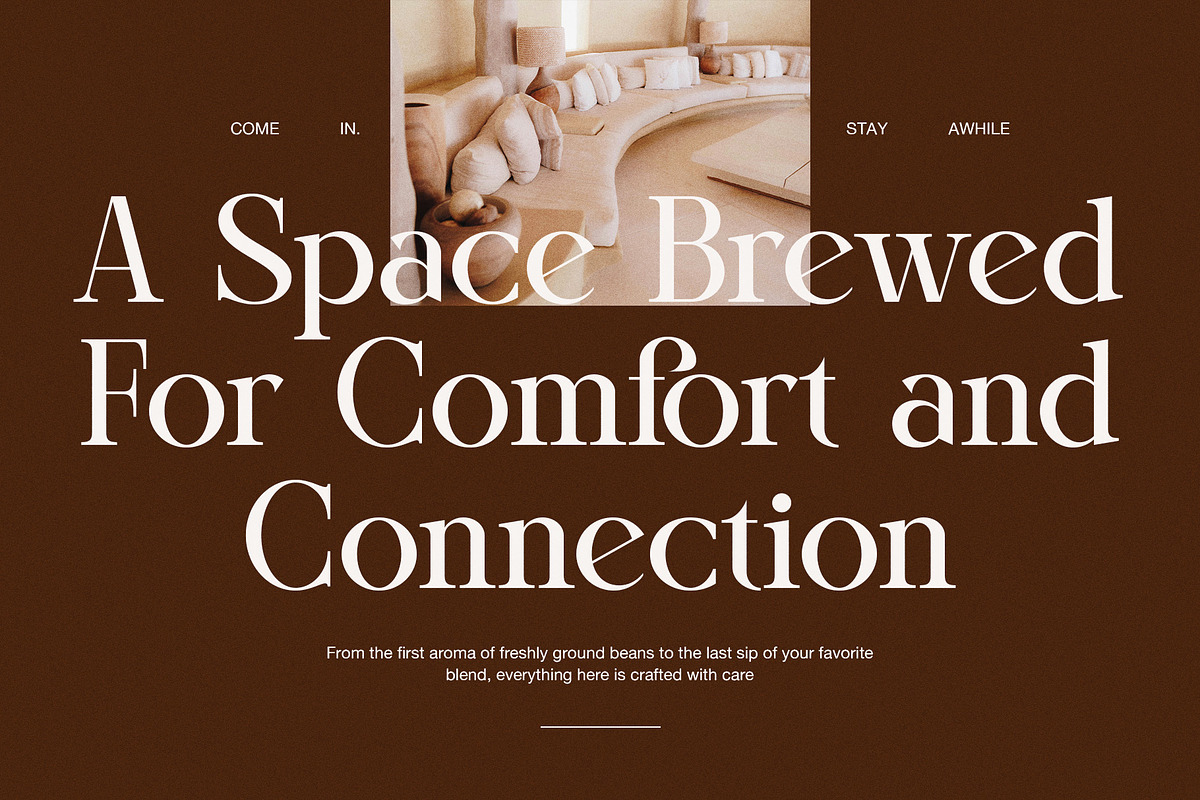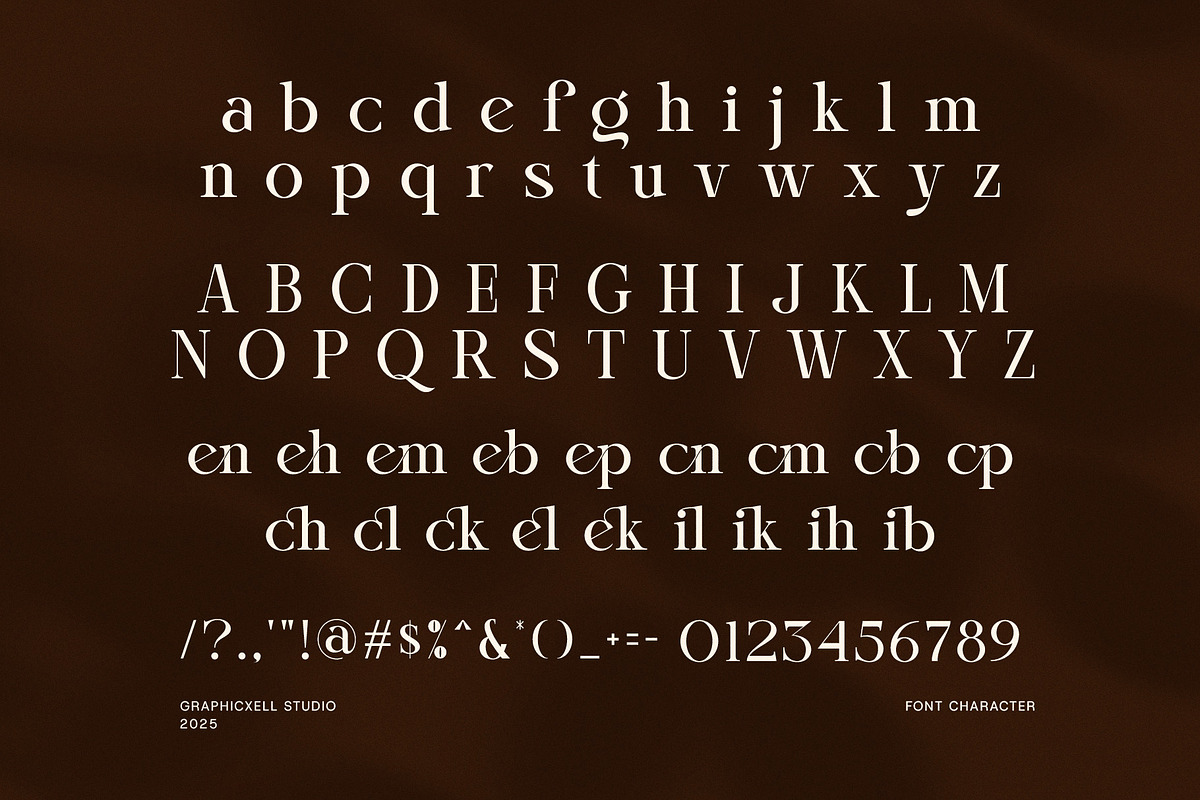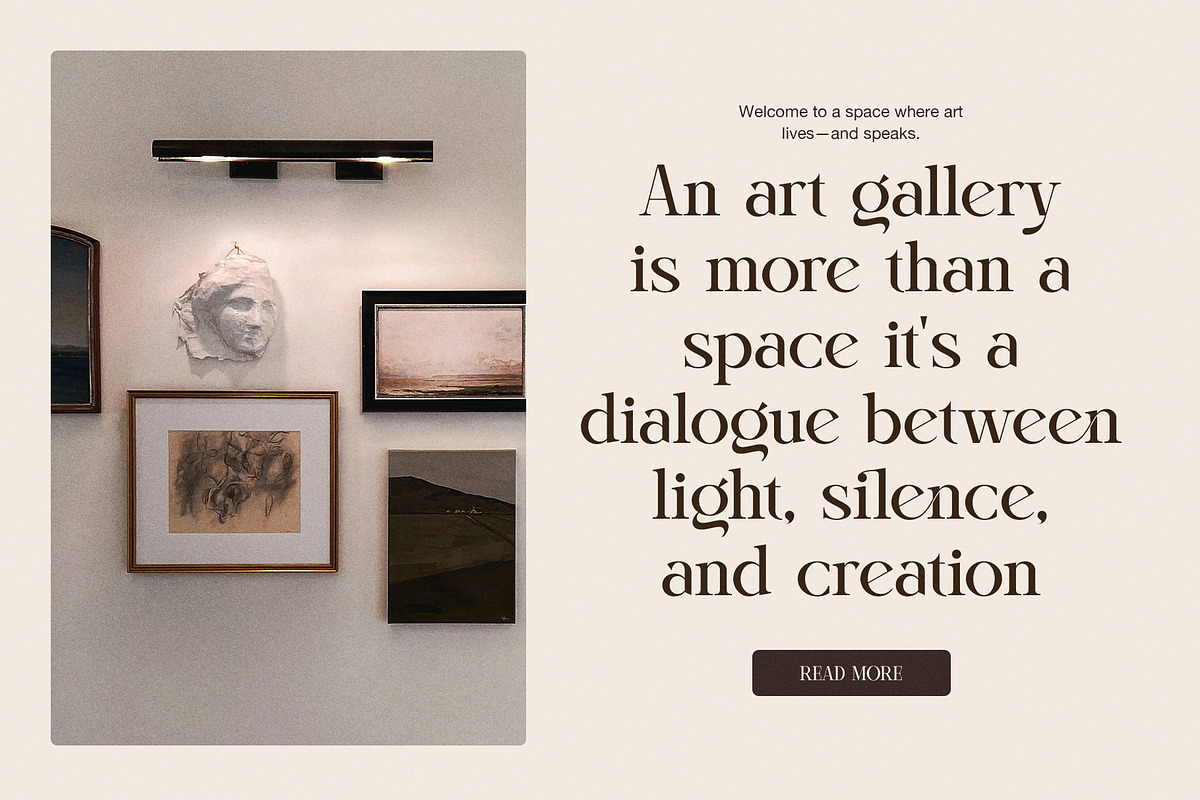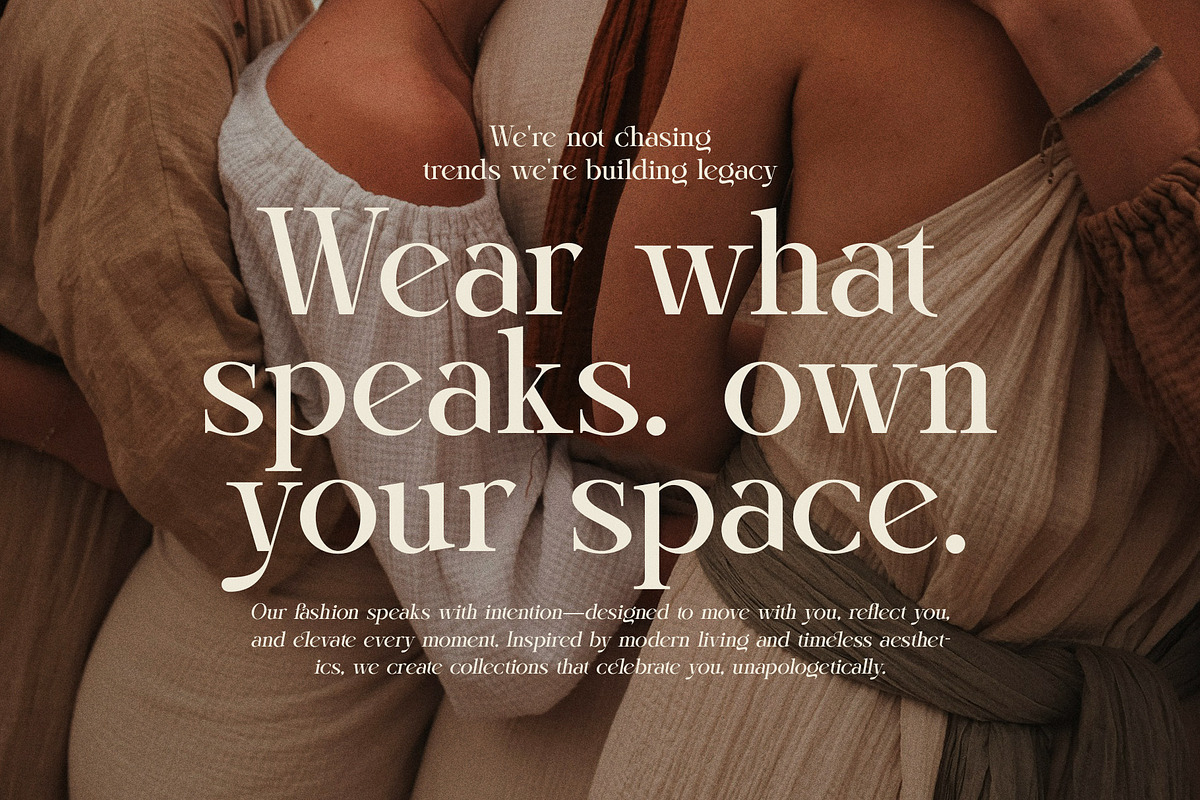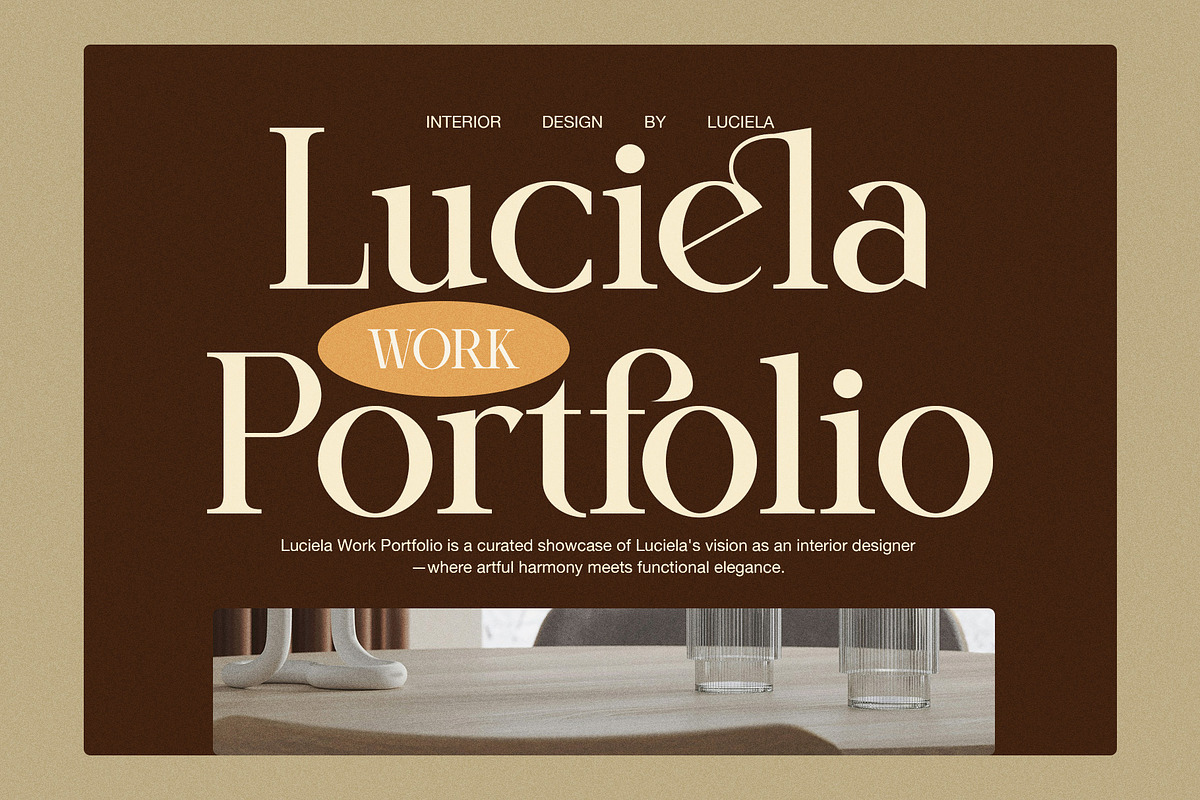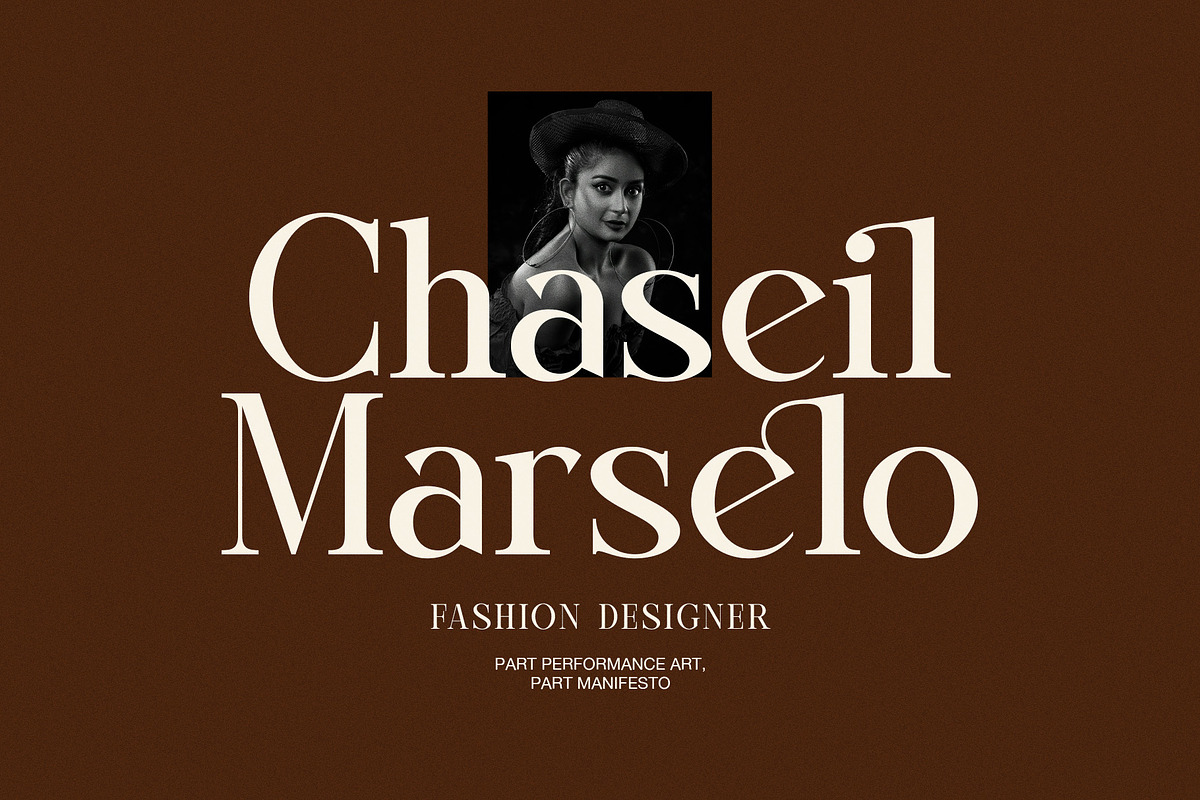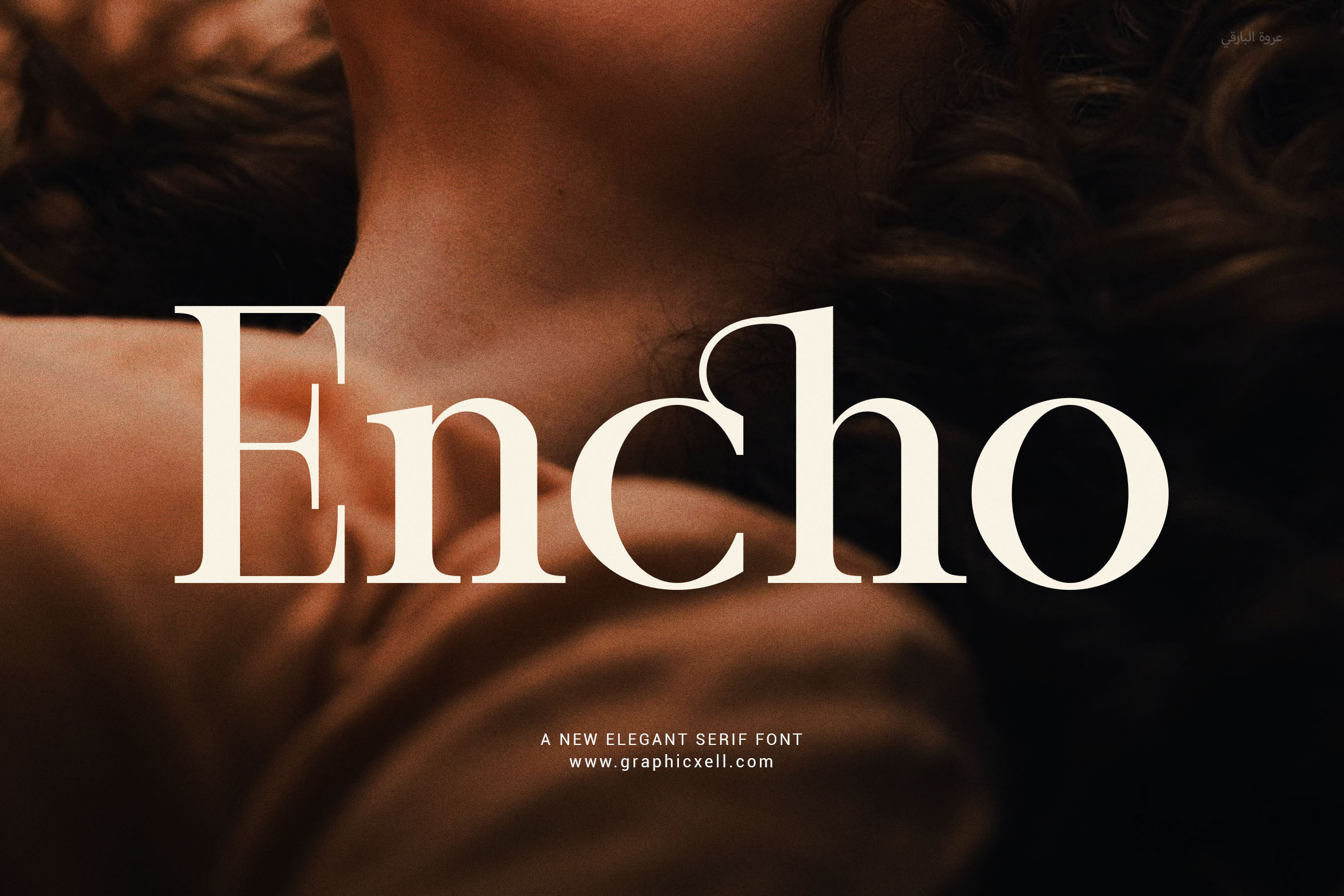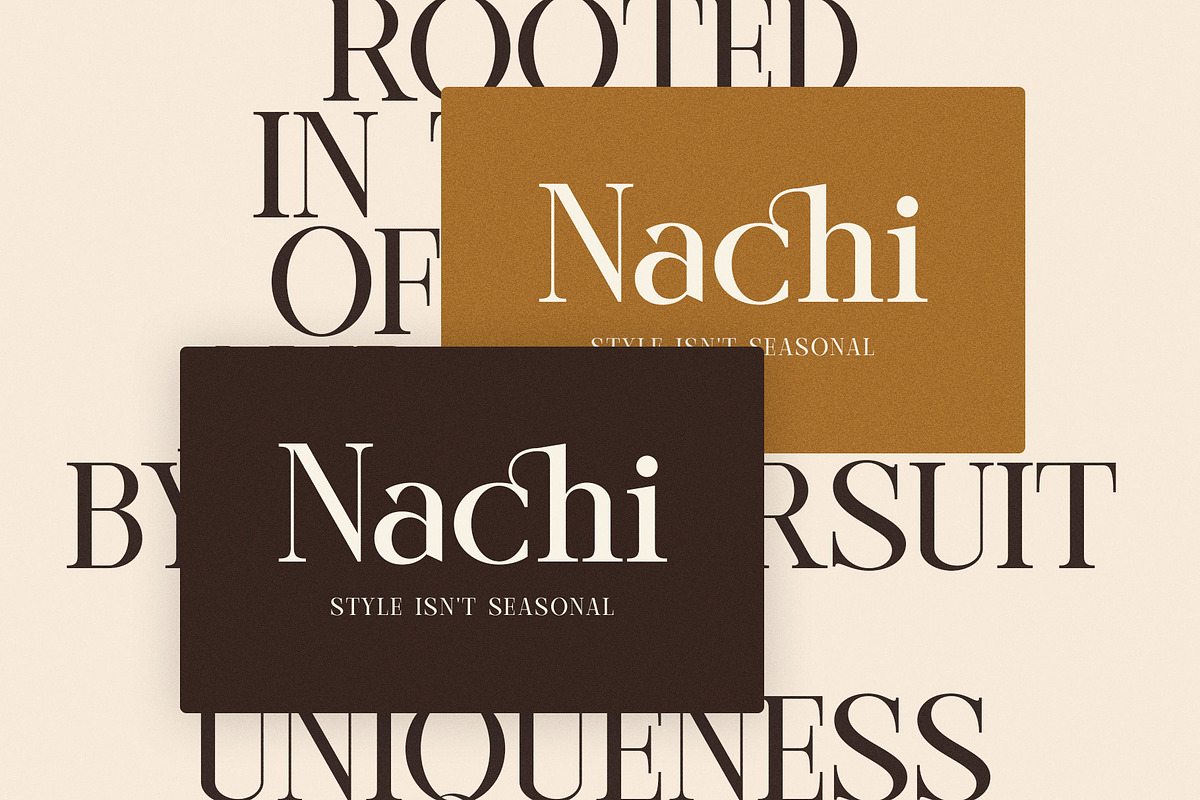
Encho Modern Serif Font
Encho Modern Serif Font — Sophisticated Style for Premium Branding
Encho is a modern serif font that blends clean structure with a touch of elegance. Designed for professionals and creatives alike, this typeface brings a timeless yet contemporary feel to any visual project. Whether you're building a brand identity, designing a magazine, or creating sleek website typography, Encho adds polish and refinement to your design.
With balanced letterforms and beautifully crafted ligatures, Encho offers both form and function. Its proportional structure ensures optimal readability, while its unique aesthetic makes your text visually striking. Perfect for logos, packaging, headlines, web layouts, advertisements, boutique branding, and even high-end food or fashion labels.
Key Features of Encho Modern Serif Font:
Elegant serif with modern lines
Ligature support for stylish combinations
Perfect for branding, logos, packaging, and more
Proportional design for strong readability
Great for creative professionals and businesses
Multilingual support included
Upgrade your branding with Encho — the modern serif that leaves a lasting impression.